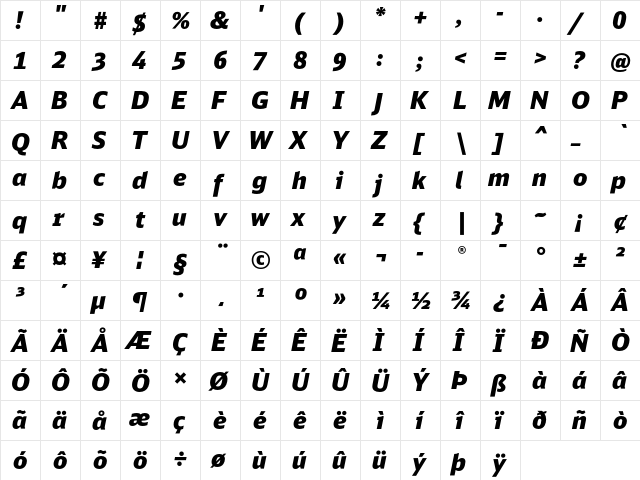
DB Head Alternate Black Italic
Design Context for DB Head Alternate Typeface
DB Head Alternate is a composed and adaptable typeface that performs quietly and consistently across a wide range of design contexts. The slanted form adds forward momentum and visual energy.
Pro Tip: Use DB Head Alternate for emphasis, pull quotes, and subheadings where its slanted energy can add rhythm to the layout.